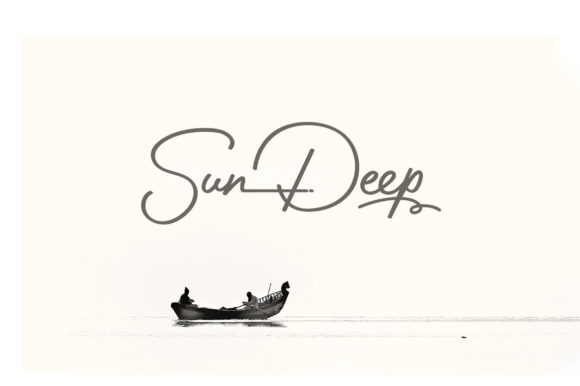
Welcome to the world of Sun Deep Font, where elegance and authenticity intertwine to create a lettering experience like no other. This breathtaking script font, meticulously crafted by Nico Muslib, exudes a charm that is both timeless and contemporary, inviting you to add a touch of sophistication to your creative endeavors.
Sun Deep Font is not just a font; it's an expression of artistry, a dance of ink on paper that captivates the senses. Its graceful strokes and sweeping curves, reminiscent of the finest calligraphy, lend an air of exclusivity and refinement to your designs. Whether you're crafting wedding invitations, expressing gratitude with thank-you cards, or adding a personal touch to logos and business cards, Sun Deep Font elevates your words into works of art.
With Sun Deep Font, your designs transcend the ordinary and embrace the extraordinary. It's the perfect companion for creating quotes that resonate, greeting cards that warm hearts, and branding that leaves a lasting impression. Its versatility extends to various design styles, from classic and traditional to modern and minimalist, making it a font that adapts seamlessly to your creative vision.
Sun Deep Font is more than just a font; it's a storyteller, a conduit for emotions, a key to unlocking a world of endless possibilities. Its enchanting allure will captivate your audience, leaving them spellbound by the beauty and authenticity of your creations. Embrace Sun Deep Font today and embark on a journey of artistic exploration where boundaries dissolve, and masterpieces are born.